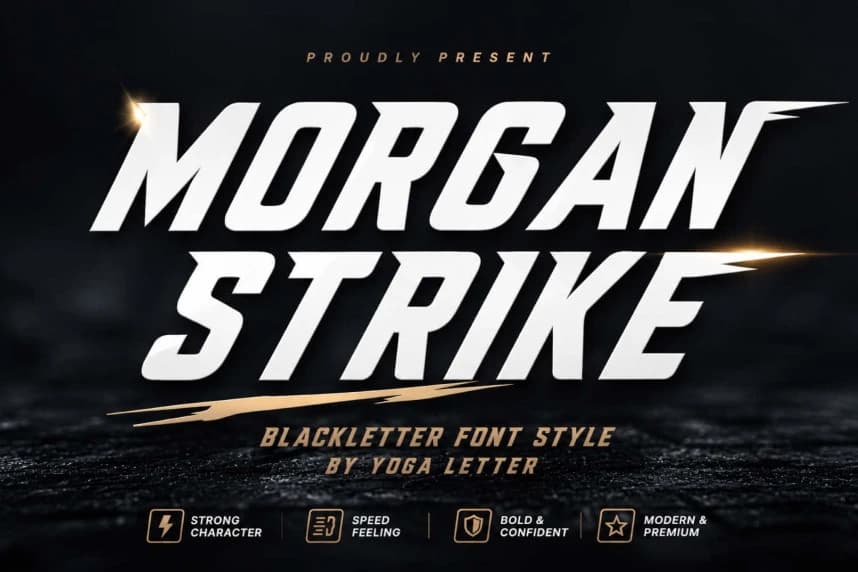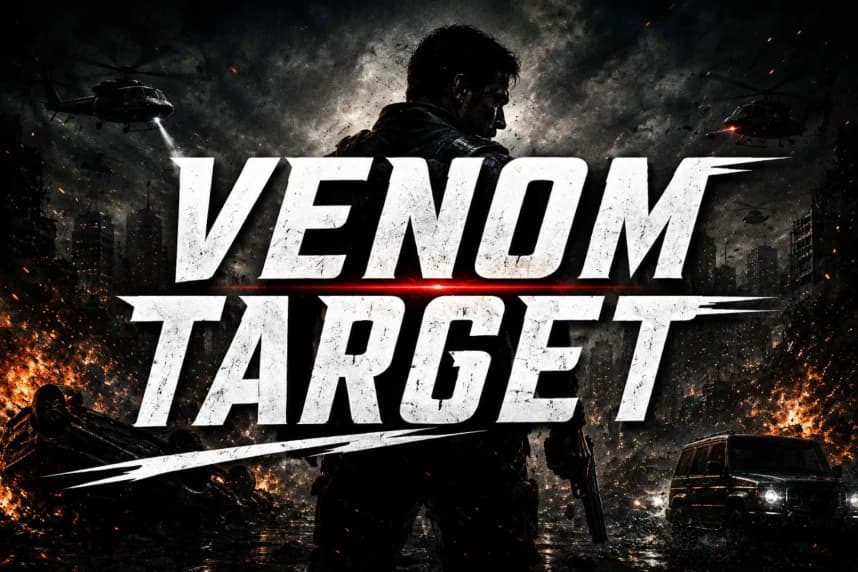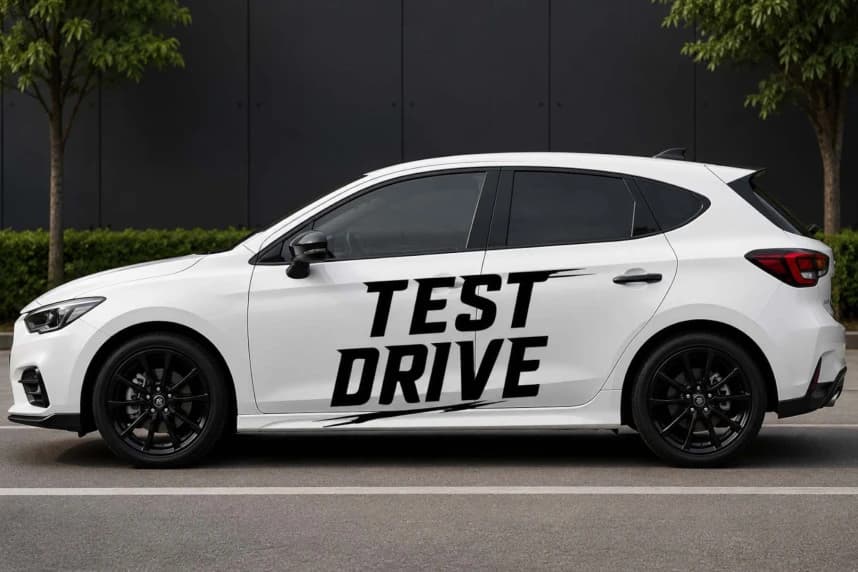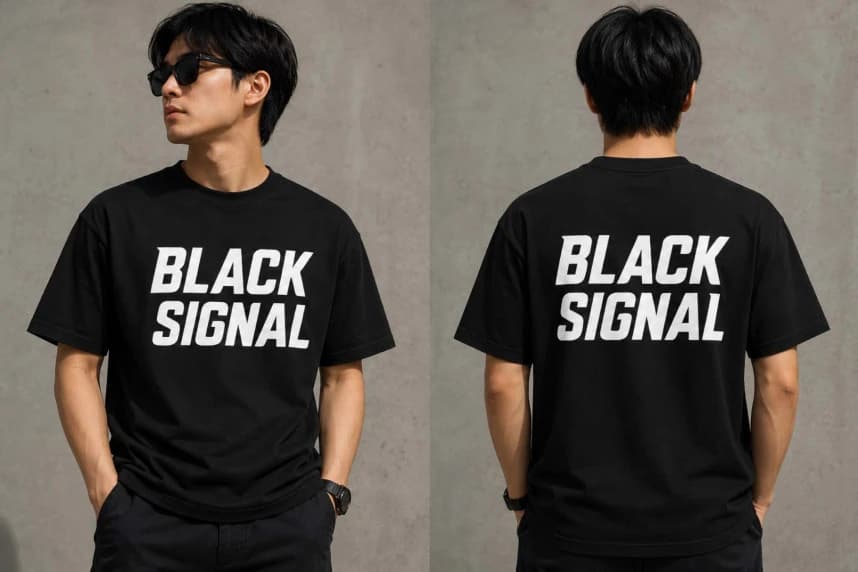
Morgan Strike Font
Morgan Strike Font is a modern and premium blackletter font. This font has a strong character, a speedy feeling, bold, and confident. It has two styles: regular and italic, equipped with alternates, swashes, uppercase letters, lowercase letters, numerals